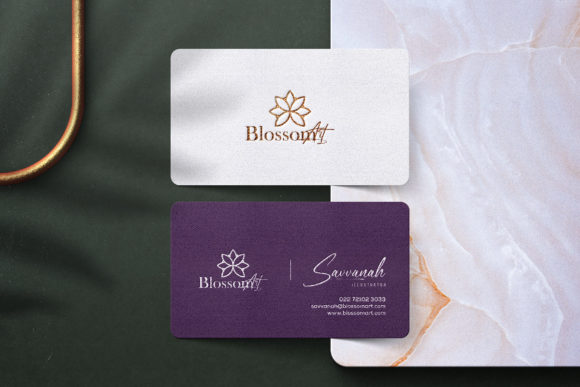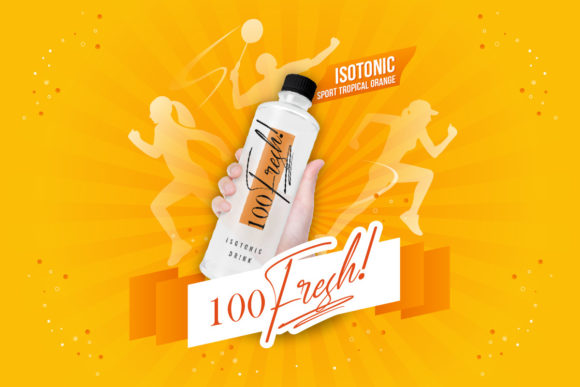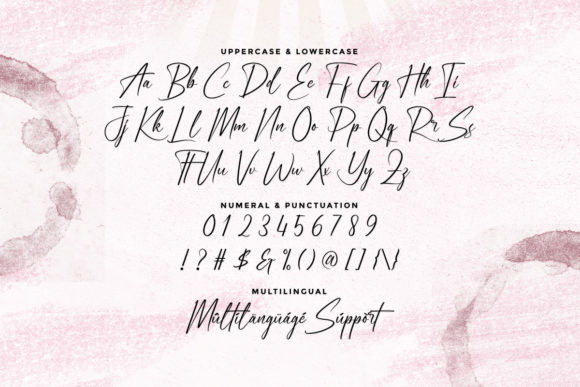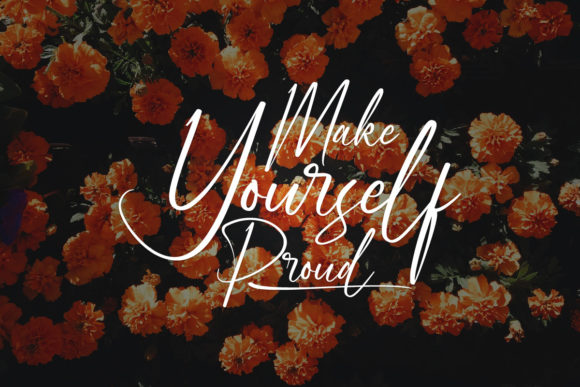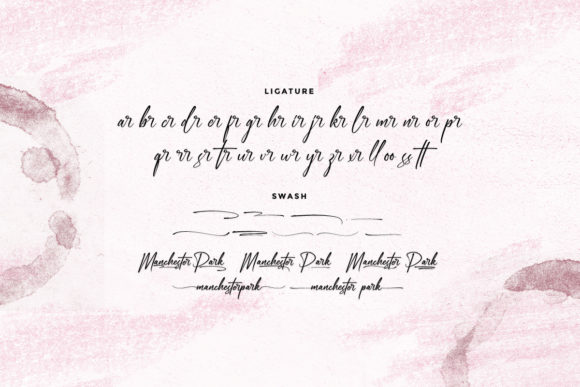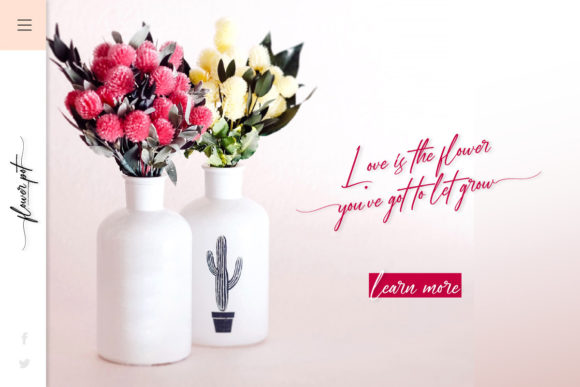
Introduction to Manchester Park Font
As a designer, there’s nothing quite like the thrill of discovering a new font that perfectly captures the essence of your creative project. For me, that moment came when I stumbled upon the enchanting Manchester Park Font. With its delicate, elegant script and transparent background, this font is a game-changer for any design resource looking to add a touch of sophistication to their work.
Whether you’re working on a high-end branding project or a personal creative endeavor, the Manchester Park Font is sure to inspire. Its PUA encoding allows for seamless access to all the amazing glyphs and ligatures, making it a valuable addition to any designer’s toolkit. And the best part? It’s available for free download, making it an accessible and high-quality resource for designers of all levels.
Key Features of Manchester Park Font
- High-quality, elegant font perfect for creative projects and design resources
- Transparent background and customizable design elements for a unique look
- Designed to provide a sophisticated and stylish touch to any design project
- Perfect for use in logos, branding materials, and other creative applications
Honest Review: Manchester Park Font
As a designer, I’m always on the lookout for high-quality fonts to elevate my creative projects. Recently, I came across the Manchester Park Font, and I’m excited to share my thoughts on this design resource.
What works well is the font’s versatility – it’s suitable for a variety of projects, from posters to business cards. The font’s modern and sleek design makes it perfect for those who want a professional look without being too formal.
What I Like:
- ✨ Versatile design suitable for various projects
- ✨ Modern and sleek design
- ✨ Available in transparent background
- ⚠️ Limited character set (not ideal for long blocks of text)
- ⚠️ Not suitable for all font sizes (may become distorted at larger sizes)
Overall, I’m impressed with the Manchester Park Font. While it has some limitations, it’s a great addition to any designer’s toolkit. With its modern design and free download option, it’s definitely worth checking out.
The Manchester Park Font is a versatile design resource that can elevate your creative project with its unique style and high-quality aesthetic. To get the most out of this font, follow these steps:
Manchester Park Font: Tips and Tricks
To get the most out of the Manchester Park Font, consider the following tips:
– Use a transparent background to create a subtle, high-quality effect.
– Experiment with different font sizes and styles to create a unique design.
– Combine the Manchester Park Font with other design elements to create a cohesive and visually appealing project.
Common Use Cases for Manchester Park Font
The Manchester Park Font is ideal for:
– Branding and logo design.
– Advertising and marketing materials.
– Digital and print publications.
– Creative projects that require a unique and high-quality aesthetic.
Alternatives to Manchester Park Font
Pacifico is a beautiful script font that is perfect for creative projects that require a touch of elegance. It features a transparent background, making it ideal for use on transparent or colored backgrounds. Pacifico is a free download, making it a great design resource for designers on a budget.
When to use: Use Pacifico for wedding invitations, branding materials, or any project that requires a sophisticated and elegant look.
How it compares to Manchester Park Font: Pacifico has a more elegant and refined feel compared to Manchester Park Font, which is more rustic and vintage-inspired.
Great Vibes is a modern script font that is perfect for designers looking for a high-quality font with a fun and energetic vibe. It features a transparent background and is a free download, making it a great design resource for creative projects.